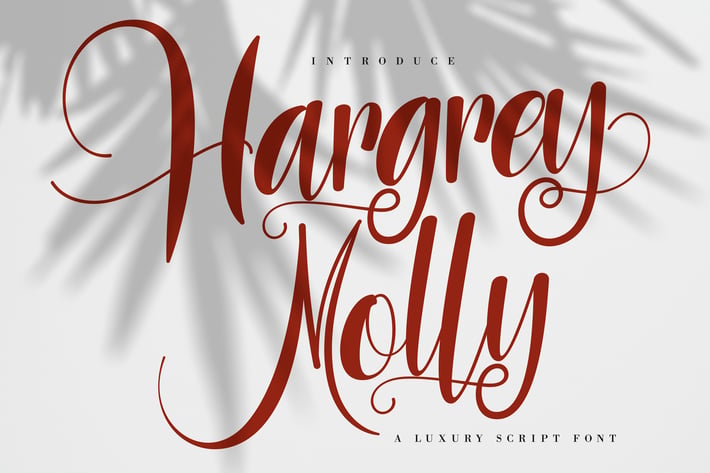
Hargery Molly | Luxury Script Font
Hargery Molly | Luxury Script Font with a calligraphy style, So beautiful on invitation like greeting cards, branding materials, business cards, quotes, posters, and more!